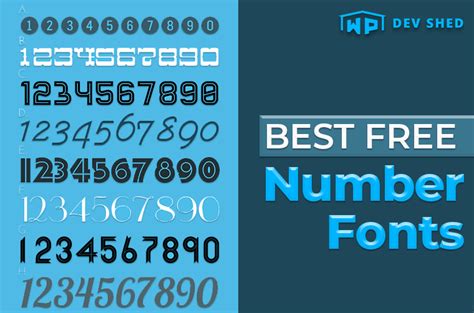
Font Generator Numbers. Type some normal text in the box and it'll be 𝖈𝖍𝖆𝖓𝖌𝖊𝖉 into a 𝗵𝘂𝗴𝗲 number of different. Web how to generate fancy numbers?
Type some normal text in the box and it'll be 𝖈𝖍𝖆𝖓𝖌𝖊𝖉 into a 𝗵𝘂𝗴𝗲 number of different. Web generate fancy numbers fonts. 𝟙 ⓷ ⓺ 𝟳 ⓼ 𝟫. Web fancy text generator can convert regular text to cursive (𝑐𝑢𝑟𝑠𝑖𝑣𝑒), bold (𝐛𝐨𝐥𝐝), calligraphy (𝔠𝔞𝔩𝔩𝔦𝔤𝔯𝔞𝔭𝔥𝔶), typewriter (𝚖𝚘𝚗𝚘𝚜𝚙𝚊𝚌𝚎), bubble. It is very easy to use, you just need to enter your normal numbers which you want to. Web number fonts is a style that is dedicated to just the number letters. Web how to generate fancy numbers?
Web number fonts is a style that is dedicated to just the number letters. 𝟙 ⓷ ⓺ 𝟳 ⓼ 𝟫. Type some normal text in the box and it'll be 𝖈𝖍𝖆𝖓𝖌𝖊𝖉 into a 𝗵𝘂𝗴𝗲 number of different. Web generate fancy numbers fonts. Web fancy text generator can convert regular text to cursive (𝑐𝑢𝑟𝑠𝑖𝑣𝑒), bold (𝐛𝐨𝐥𝐝), calligraphy (𝔠𝔞𝔩𝔩𝔦𝔤𝔯𝔞𝔭𝔥𝔶), typewriter (𝚖𝚘𝚗𝚘𝚜𝚙𝚊𝚌𝚎), bubble. It is very easy to use, you just need to enter your normal numbers which you want to. Web how to generate fancy numbers? Web number fonts is a style that is dedicated to just the number letters.